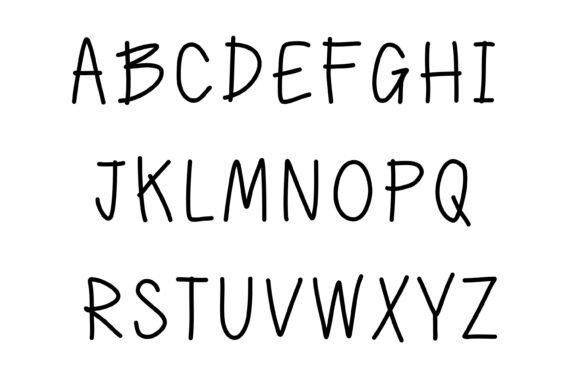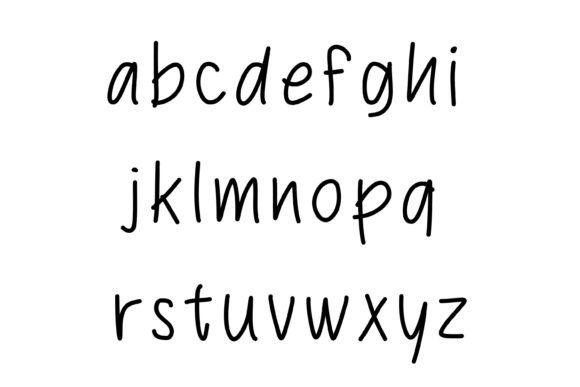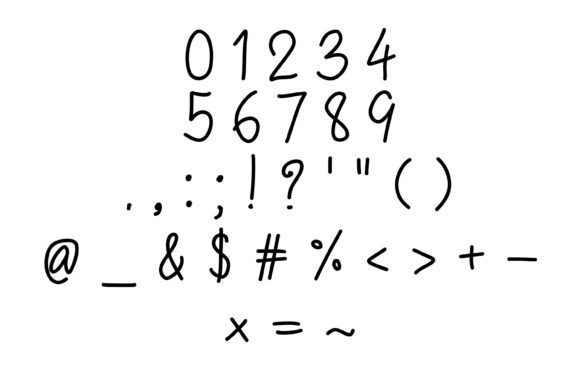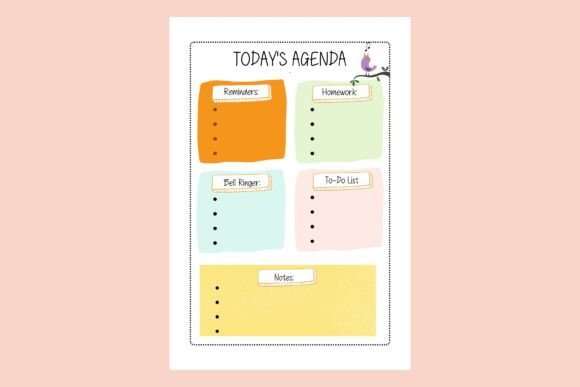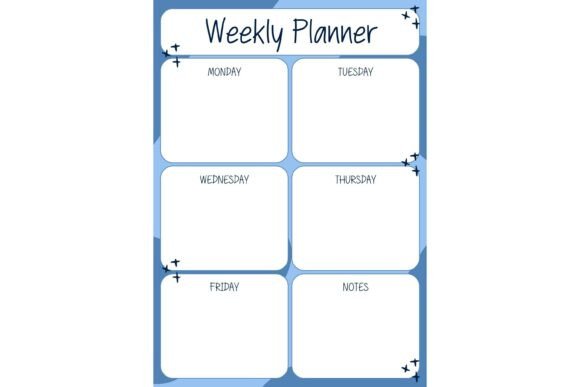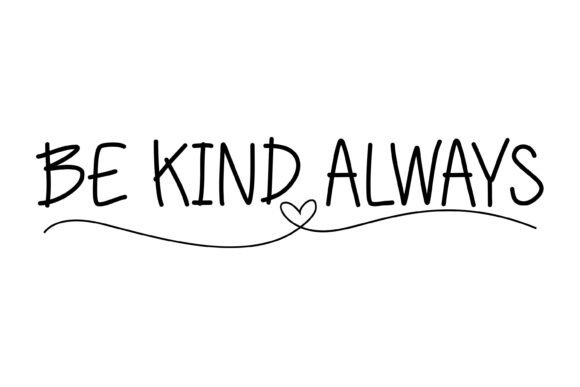
Introduction to Noteflow Font
✨ Noteflow Handwritten Font – Your Go-To for Simple, Elegant Design.
✨ Introducing Noteflow, a beautifully clear and minimalist handwritten font that brings a touch of genuine charm to all your creative projects With its clean lines and easy-to-read style, Noteflow is designed to be your versatile companion for everything from heartfelt invitations to stylish branding.
Key Features of Noteflow Font
Why Choose Noteflow Font?
Noteflow Font offers exceptional quality and versatility, making it a valuable addition to your design toolkit. Whether you’re creating for personal projects or commercial use, Noteflow Font delivers professional results.